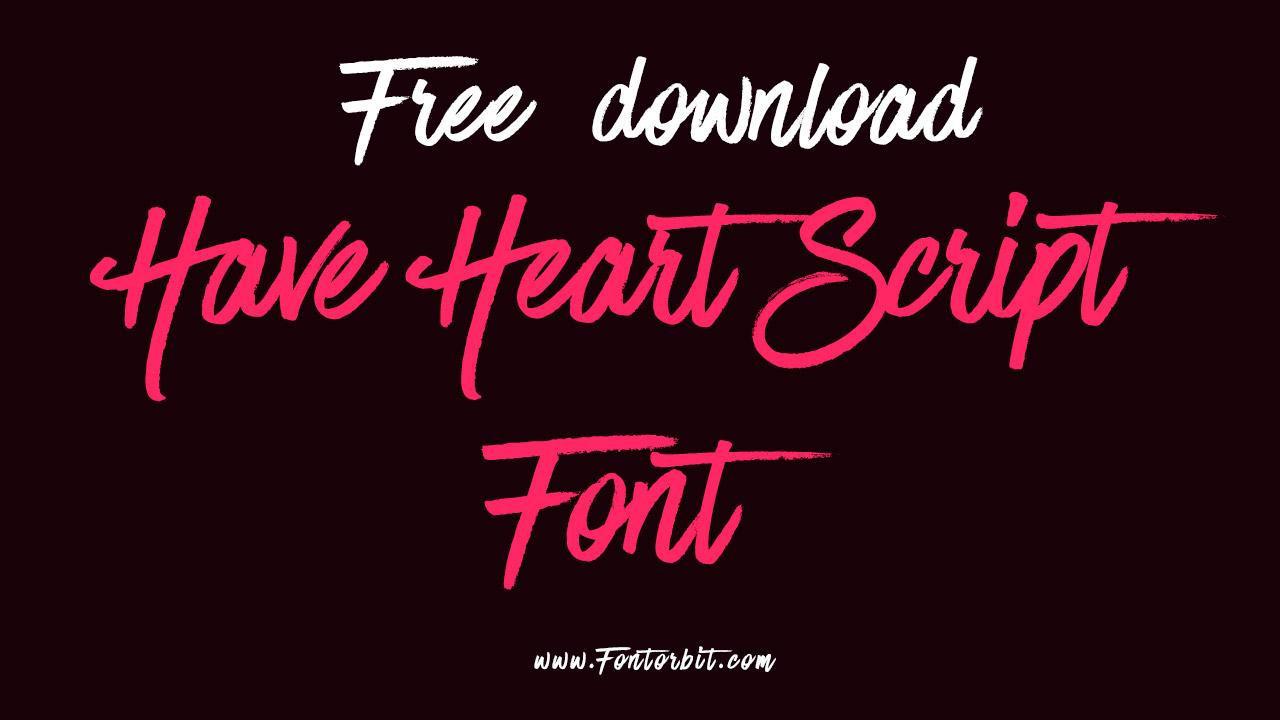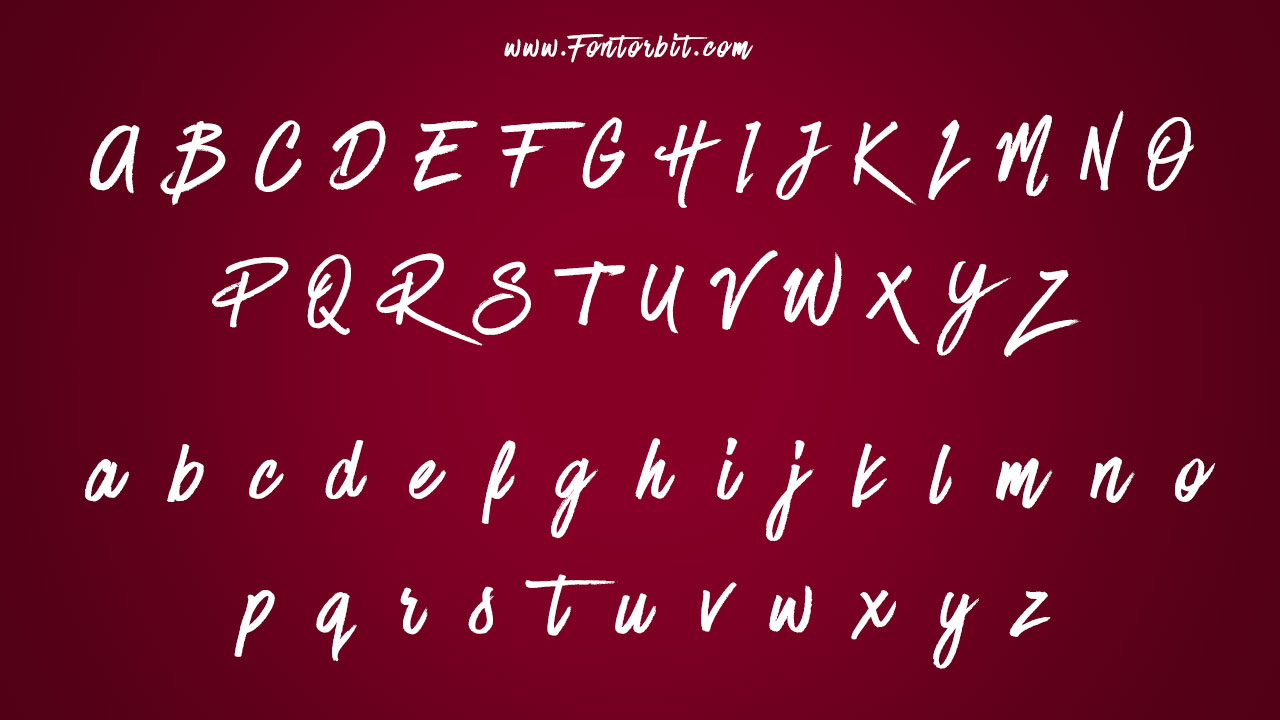
Have Heart Script Font is a striking and elegant calligraphy typeface designed by Sam Parrett. Released in 2024, this font exudes a unique charm with its fluid, handwritten style.
Category Of The Have Heart Script Font
The Have Heart Script Font belongs to the Brush, Calligraphy, and Script categories. It features a single, versatile style with an array of elegant glyphs and fluid script elements.
- Have Heart One
- Have Heart Two
- Have Heart Swash
Have Heart Script Font is ideal for a wide range of design projects where an elegant and fluid handwritten style is desired. It is perfect for enhancing the following applications:
- App design
- Brochures
- Vehicle wraps
- Signage and trade show displays
- Web page design
- Theme design
- Game interfaces
- Email marketing templates
- PowerPoint presentation
Have Heart Script Font offers a blend of elegance and versatility, making it a valuable addition to your design toolkit. Its sophisticated script style enhances various design projects, from wedding invitations to branding materials.
For a cohesive design approach, pair the Have Heart Script Font with clean, modern sans-serifs or complementary calligraphy styles.
1.What Are The Popular Uses Of The Have Heart Script Font?
Have Heart Script Font is popular for wedding invitations, social media graphics, advertisements, product packaging, stationery, and more, thanks to its elegant, fluid script style.
4.What Is The Font Size Range For The Have Heart Script Font?
Have Heart Script Font works well in various sizes, typically from 12pt for text to 100pt or more for headlines and logos.
5.How To Create A Logo Using The Have Heart Script Font?
Design your logo using Have Heart Script’s elegant script in vector graphic software like Adobe Illustrator, combining it with other design elements for a unique and stylish result.